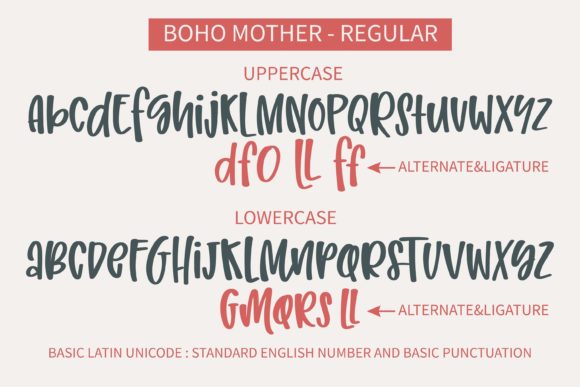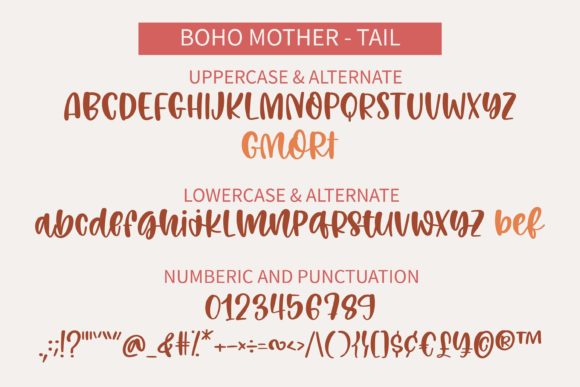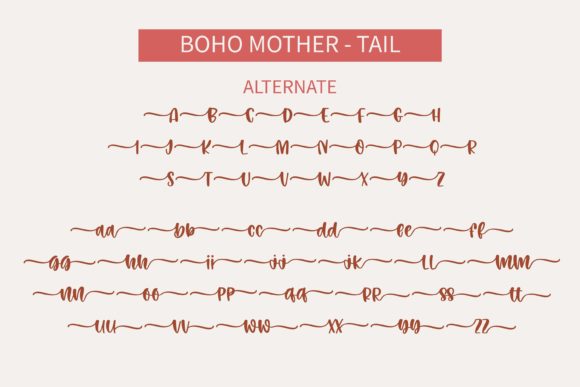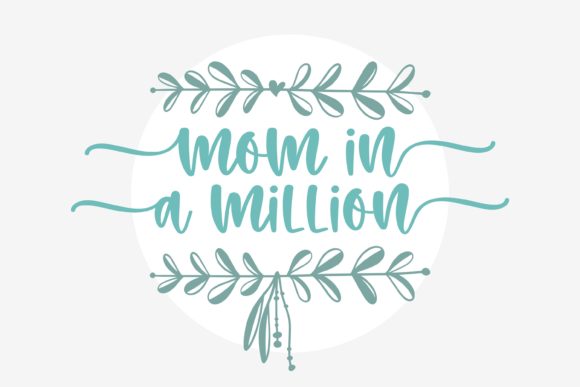
The Boho Mother Font: A Charming Duo-Styled Handwritten Font
So, what makes the Boho Mother font so special? Here are a few things I love about it:
- ✨ Unique Duo-Styled Handwritten Font: Boho Mother is a one-of-a-kind font that combines two styles in one, making it perfect for creative projects that need a personal touch.
- ✅ PUA Encoded: This font is PUA encoded, which means you can access all the glyphs and swashes with ease, giving you endless possibilities for customization.
- 💫 Charming and Delicate: The font has a whimsical feel that’s both charming and delicate, making it perfect for branding, packaging, and marketing materials.
- 🤔 Some characters may require manual kerning: As with any font, you may need to adjust the kerning on some characters to get the perfect look.
- ⚠️ Not suitable for body text: Due to its decorative nature, Boho Mother is best used for headlines, titles, and short paragraphs, rather than body text.
The Boho Mother font was inspired by the free-spirited nature of bohemian culture. The designer wanted to create a font that captured the essence of a carefree, artistic lifestyle. With its unique duo-styled handwritten design, Boho Mother is perfect for creative projects that need a personal touch.
| Font Name | Boho Mother Font |
| Author | BitongType |
| What is the Boho Mother font? | The Boho Mother font is a duo-styled handwritten font that’s both charming and delicate. |
| Is Boho Mother PUA encoded? | Yes, Boho Mother is PUA encoded, making it easy to access all the glyphs and swashes. |
| Is Boho Mother suitable for body text? | No, due to its decorative nature, Boho Mother is best used for headlines, titles, and short paragraphs, rather than body text. |